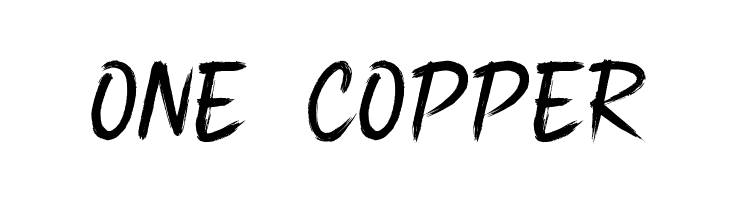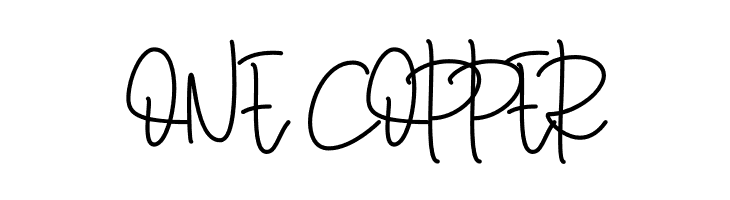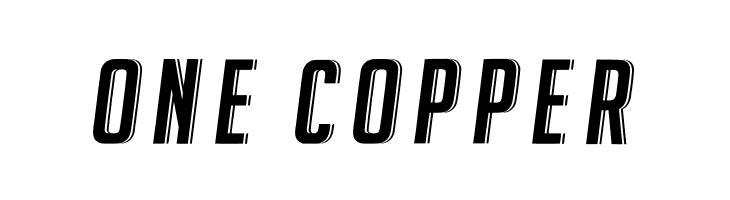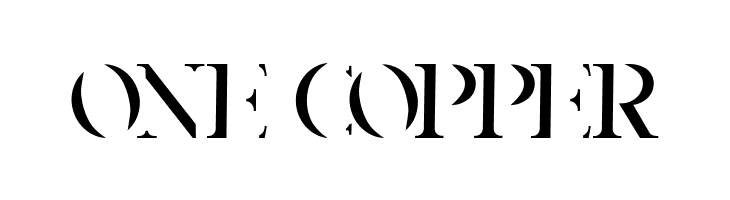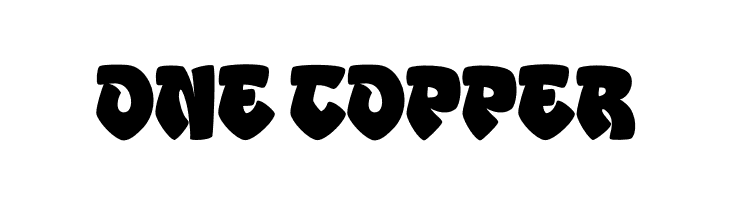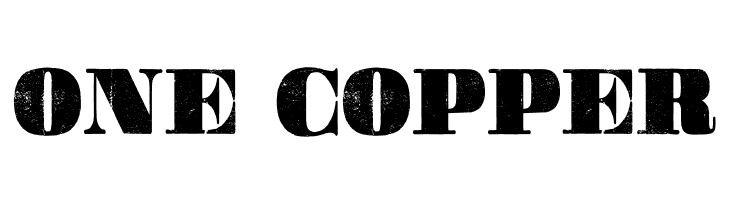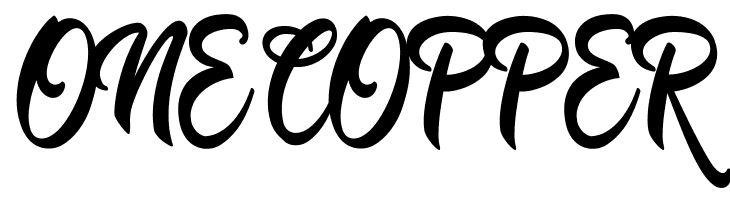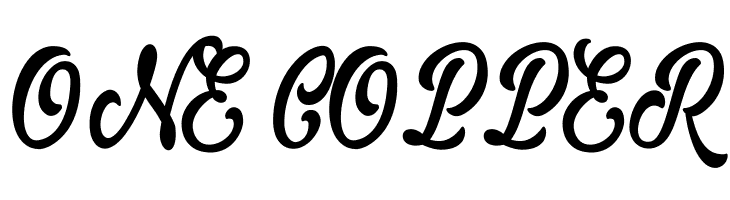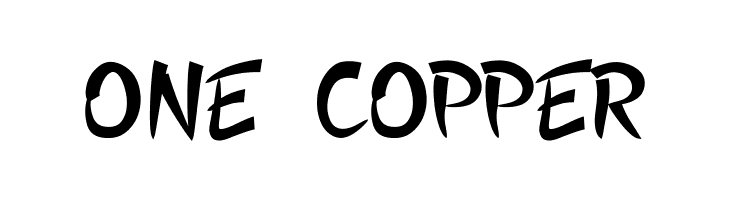
A bold, italicized font with a dynamic and modern style.
A bold, left-italicized font with a blocky, geometric style.
A bold, angular font with a slanted, dynamic style perfect for dramatic headlines.
A bold, dynamic font with angular cuts and a slanted style, perfect for dramatic impact.
A bold, blocky font with jagged edges for a strong, dynamic look.
Bold, angular font with a vintage horror movie poster vibe.
Bold, semi-italic font with a dynamic and energetic style.
A bold, dynamic font with thick, blocky letters and a slightly slanted orientation.
A bold, blocky font with a vintage, dramatic style.
A bold, italicized font with a dynamic and powerful style.
A bold, dramatic font with a rugged, monstrous appearance and staggered design.
A bold, staggered italic font with a dynamic and energetic style.
A bold, italicized font with a dynamic and dramatic style.
A bold, left-slanted font with a dynamic, geometric style.
A bold, wavy font with dynamic and energetic styling.
A bold, wavy font with a playful, distorted style ideal for dynamic designs.
A bold, wavy, and italicized font with a dynamic and energetic style.
A bold, wide, and geometric font ideal for impactful headlines.
A bold, wide, and italic font with a dynamic and impactful style.
A bold, distressed font with a vintage, rugged aesthetic.
A flowing, cursive script font with elegant swashes and a modern twist.
A bold, cursive script with elegant flourishes and a handwritten feel.
A bold, cinematic font with characters inside movie clapperboards.
A bold, dynamic brush script font with expressive strokes.
A bold, flowing script font with elegant curves and dynamic flourishes.
A dynamic, flowing script font with bold, elegant letterforms.
A whimsical font with letters designed as vehicles, full of movement and creativity.
A bold, dynamic font with tall, narrow letters and a modern, energetic style.
A bold, playful font with thick, rounded strokes and a cartoonish flair.
A playful, handwritten font with flowing, cursive-like strokes and a lively aesthetic.
A modern, high-contrast stencil-like font with angular cuts.
A bold, dynamic font with a hand-drawn, energetic style.